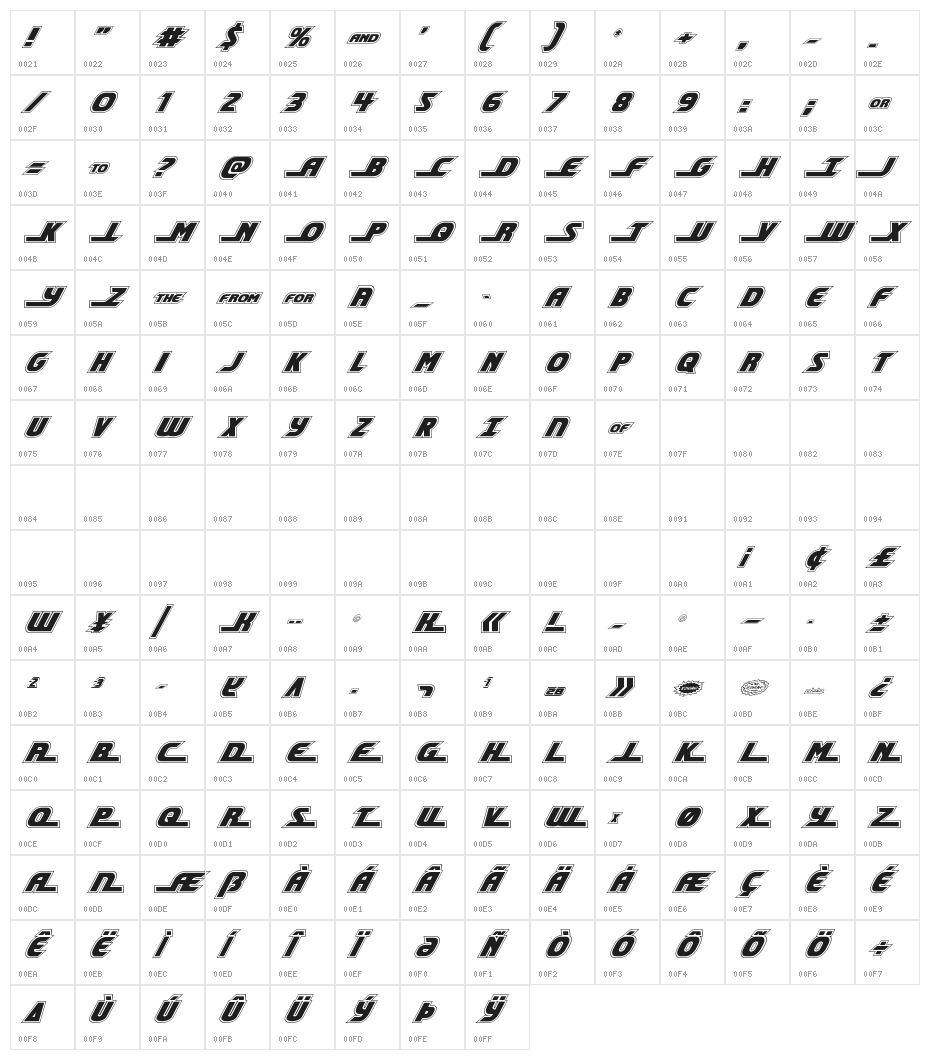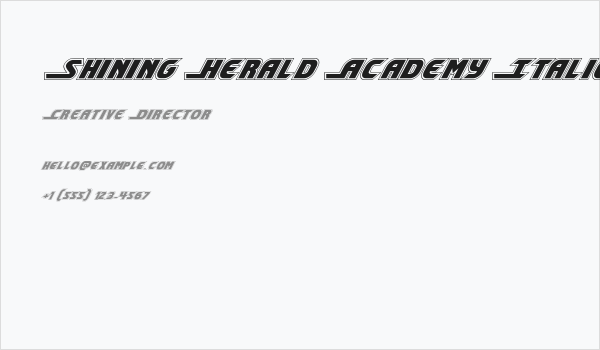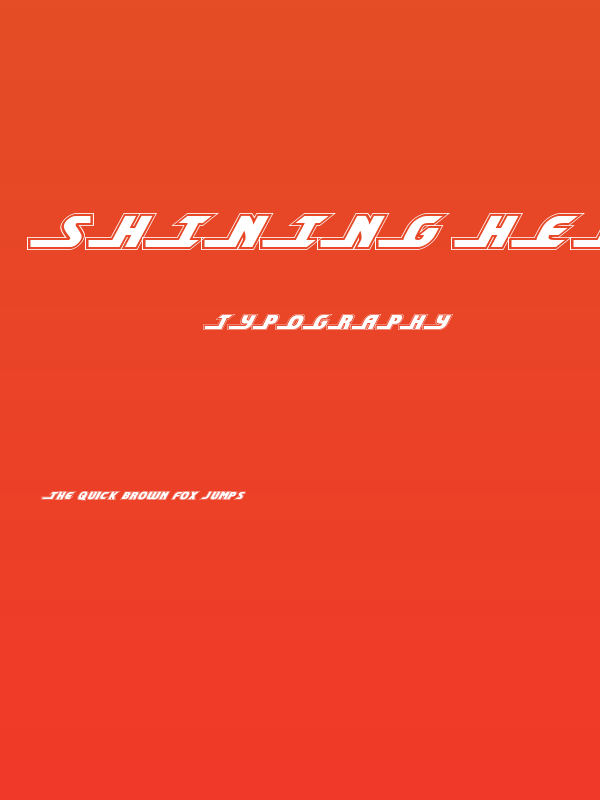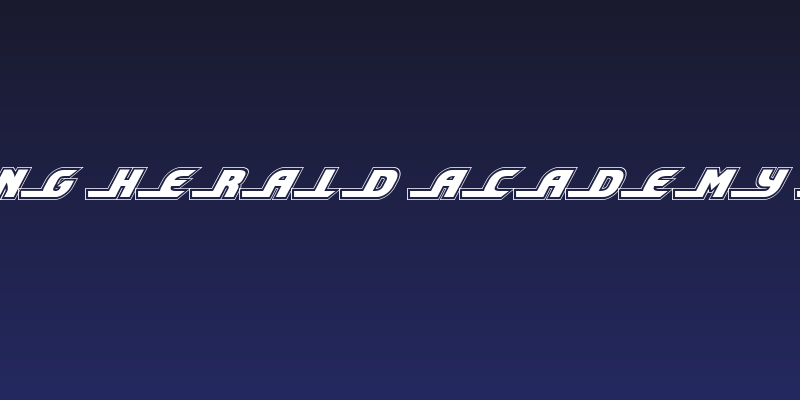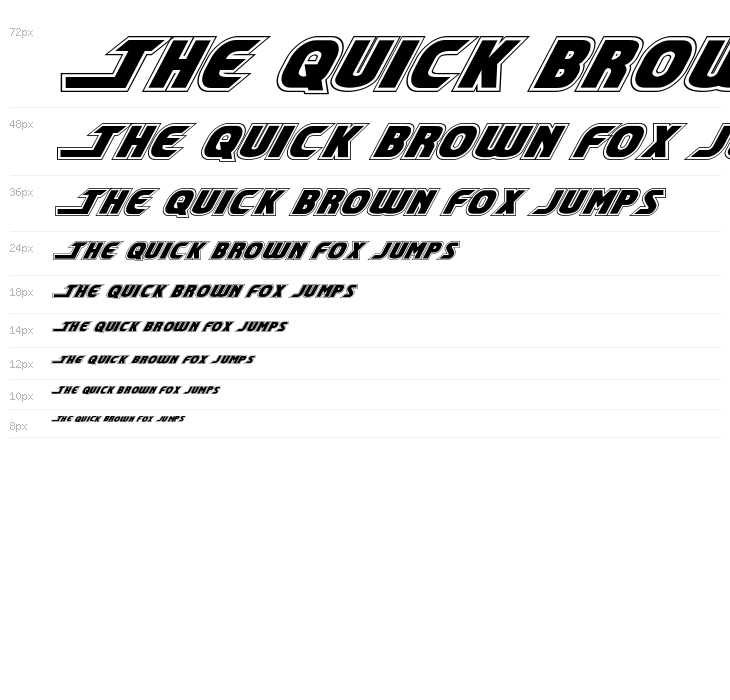
Shining Herald Academy Italic Font
Shining Herald Academy Italic Description
This font features a bold, italicized style with a strong presence, characterized by its thick strokes and dynamic slant. The uppercase and lowercase letters maintain a consistent width, providing a uniform appearance. The numbers and special characters are designed with the same boldness, ensuring readability and impact. The font's design includes sharp edges and a slight 3D effect, adding depth and a modern touch. Its overall aesthetic is both eye-catching and professional, making it suitable for a variety of creative applications.
| Proposed Projects | Ideal for branding, advertising, posters, and headlines where a bold statement is needed. |